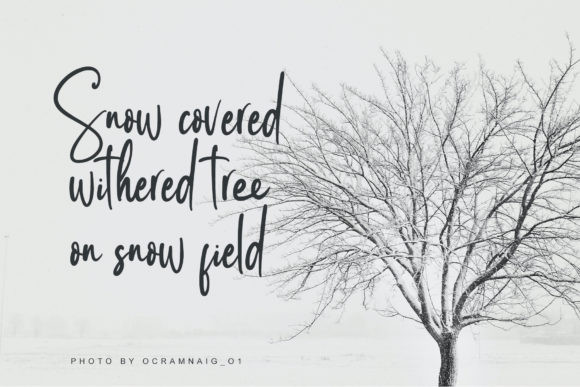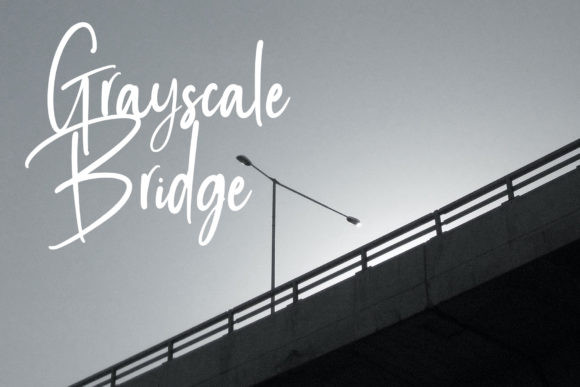
Santtina Font
Santtina is a modern handwritten font. This font is great for your next creative projects such as watermark on photography, album cover, logo, business card, and many other design project.